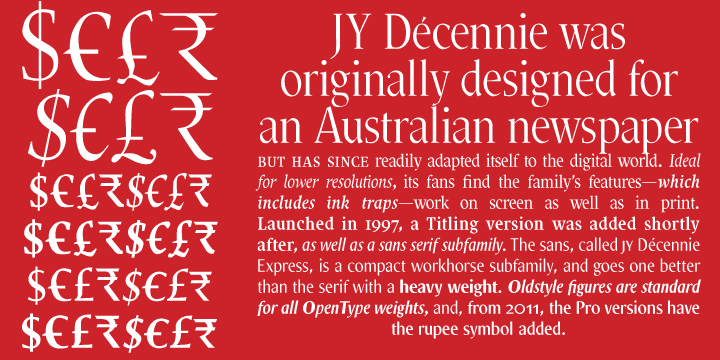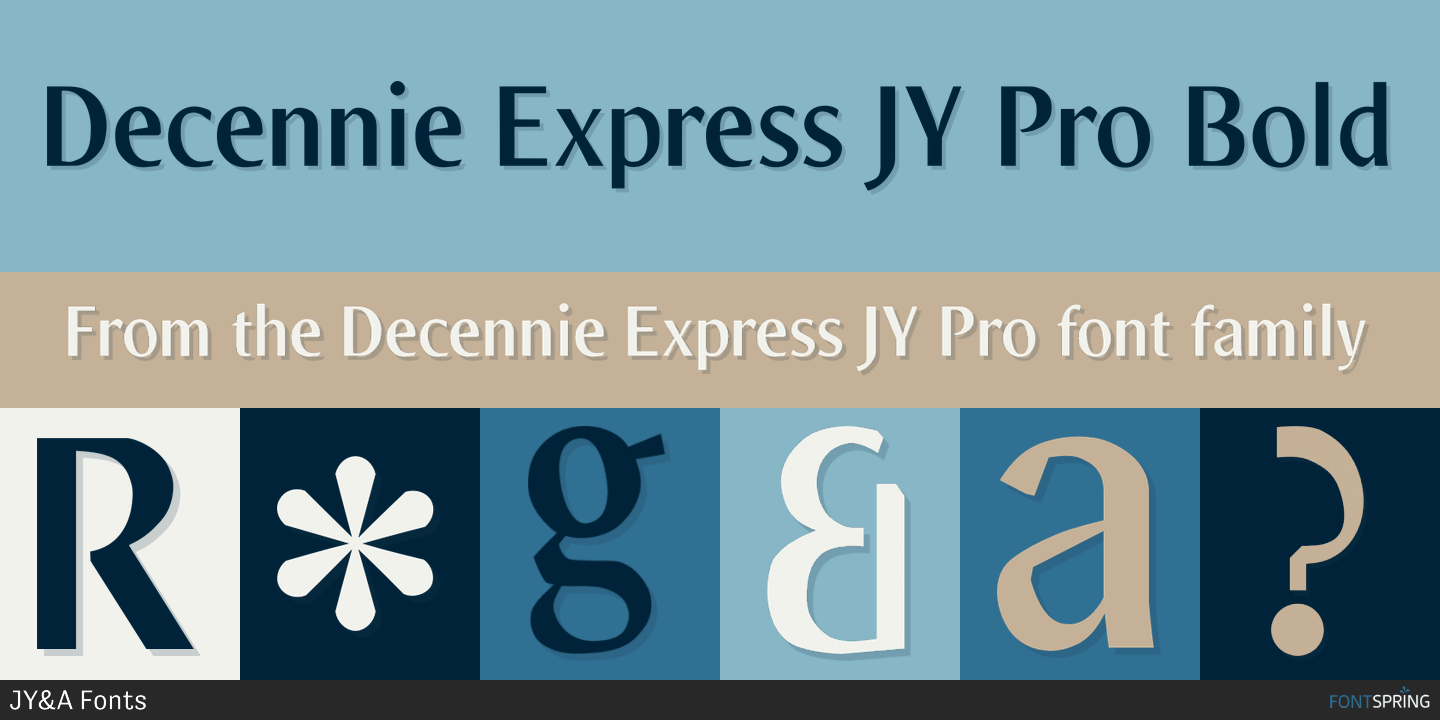
Décennie Express JY Pro
Décennie Express JY Pro is a modern serif family with a sleek, slightly condensed build and a strong editorial presence. Its high-contrast strokes, sharp terminals, tall x-height, and narrow proportions give it a polished look that feels both classic and contemporary.
With 6 styles included, spanning regular, italic, bold, bold italic, heavy, and heavy italic, this family offers a flexible range for display-driven design. The overall effect is clean, elegant, and dynamic, making it a smart choice for branding, packaging, posters, mastheads, social graphics, and other professional work that benefits from a sophisticated serif voice.
The italic cuts add extra motion and style, while the heavier weights bring confident emphasis without losing readability. If you need a serif that feels refined, modern, and visually assertive, this one is built to stand out.